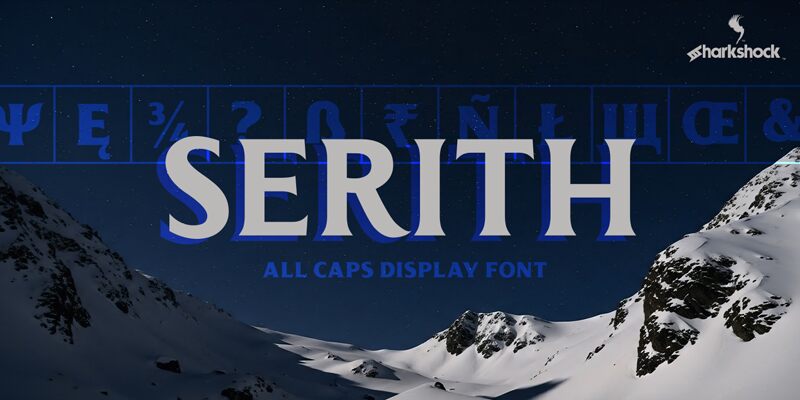
Serith font by Sharkshock is a sleek and contemporary serif typeface that perfectly balances modern appeal with traditional elegance. This free serif font’s sophisticated curves and impactful lines were designed to communicate professionalism and confidence. Its versatility in style suits its use to a large range of audiences and readerships.
The typeface is suggested for formal projects, whether part of a website or a mobile user interface, or print such as magazines, business cards, signage, posters, and others. It is furthermore an excellent choice for book covers, business posters, and branding visualization.
Serith is an all-caps display font featuring a sharp, chiseled appearance, inspired by works from the days of Greek engraving. This font family is characterized by wispy serifs, high contrast, and an emphasis on negative space. Unique features include capitals such as B, D, and H, which showcase bowls or crossbars that are either partially or completely sheared off.